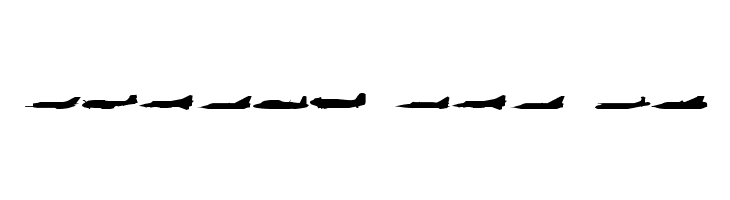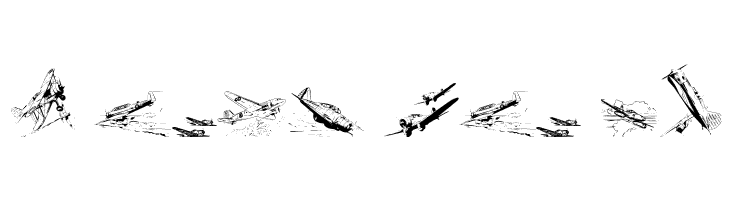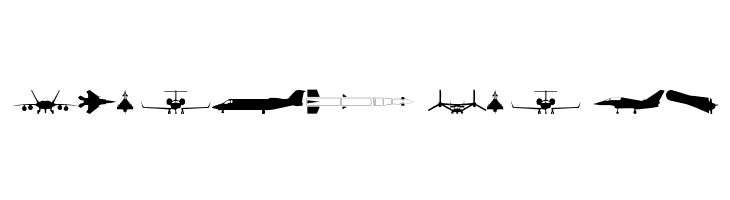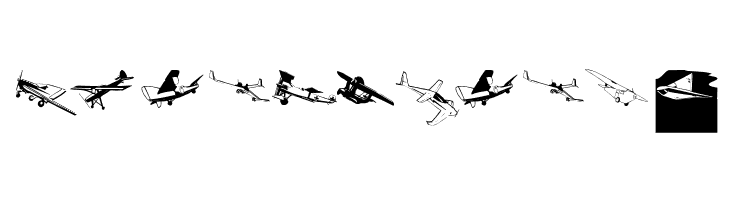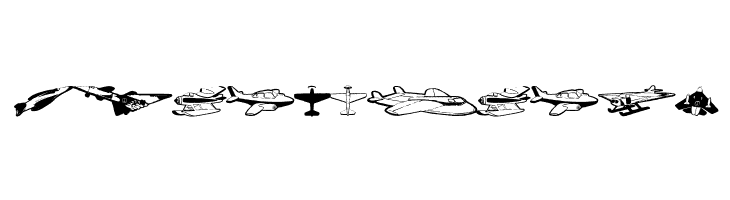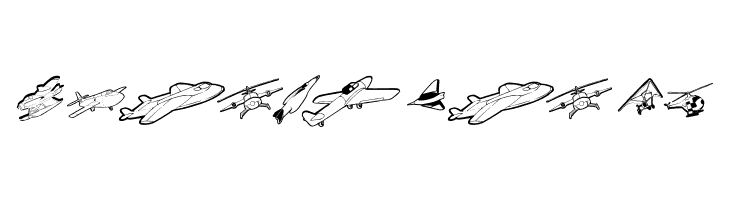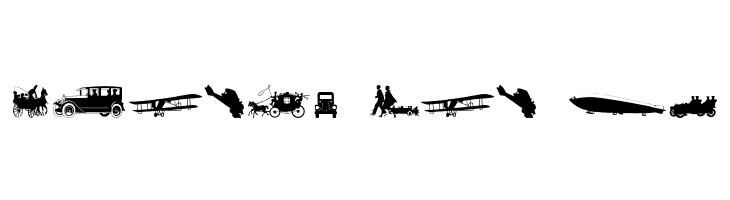
A display font featuring illustrated aircraft as letterforms.
Military-themed dingbat font with vehicle and equipment silhouettes.
A display font composed of airplane illustrations as glyphs.
A detailed illustration set of historical and modern flying machines.
A novelty font where each character is a different airplane or helicopter illustration.